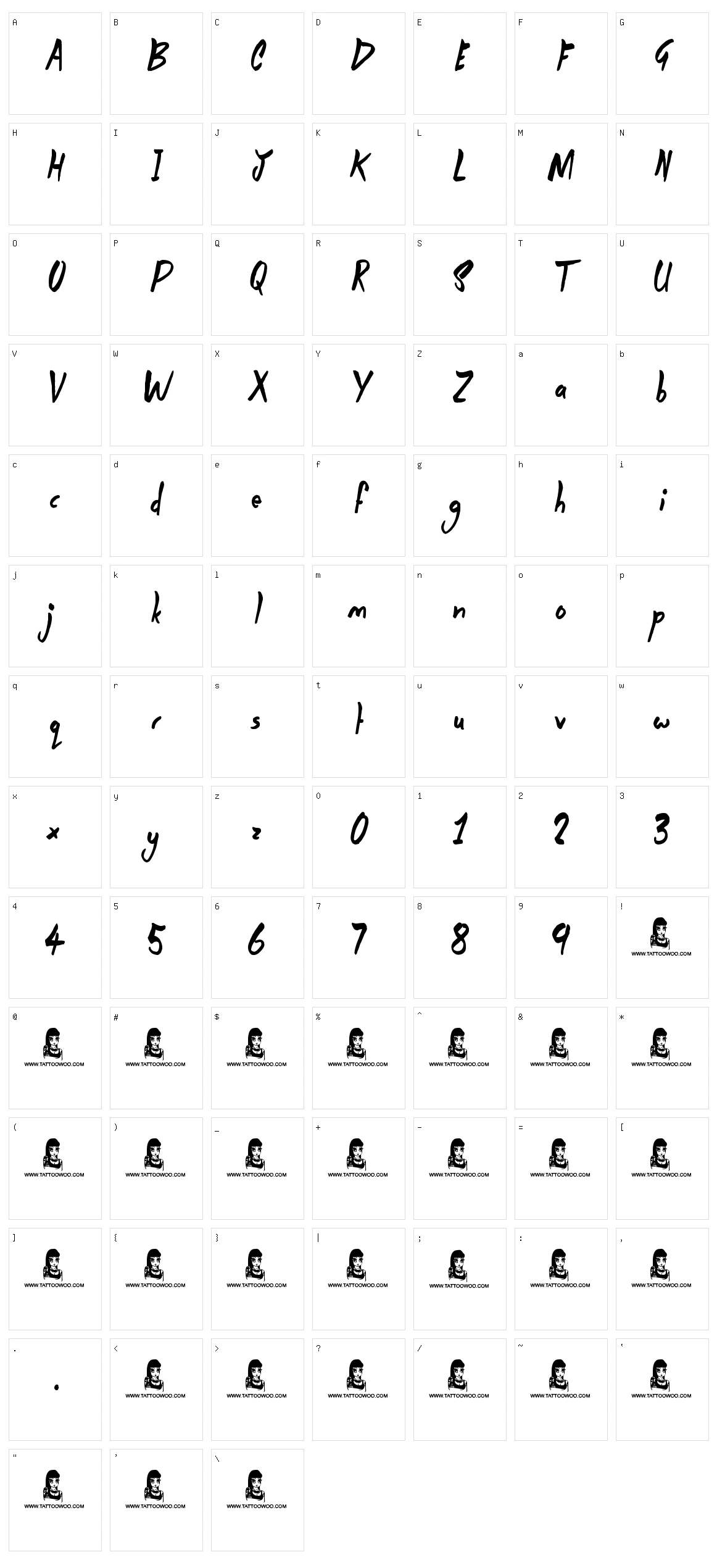
The free font Darkside of the Morning is carefully designed by JSH creates, showcasing a thoughtful balance of creativity and usability and falls under the Script font style. When you download the ZIP file, it contains only 16.57 KB of font files, making it lightweight and quick to download. Please review the license details below to understand permitted usage and distribution rights. If license information is not available, we recommend using this font for personal projects only or contacting the author directly for commercial usage permissions.